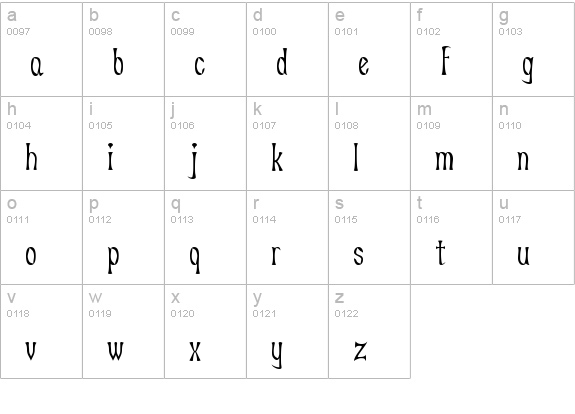
BizaroRES Font Details
Introducing BizaroRES font, a unique and eye-catching typeface that will make your designs stand out from the crowd. With its quirky and unconventional style, BizaroRES is perfect for adding a touch of whimsy and personality to your projects. This font is not only visually appealing but also versatile, making it suitable for a wide range of design applications. Whether you're working on a poster, logo, website, or any other creative project, BizaroRES is sure to make a bold statement. Best of all, BizaroRES is completely free to download at FontsMarket.com. So why wait? Give your designs a fresh and exciting look with this one-of-a-kind font today!